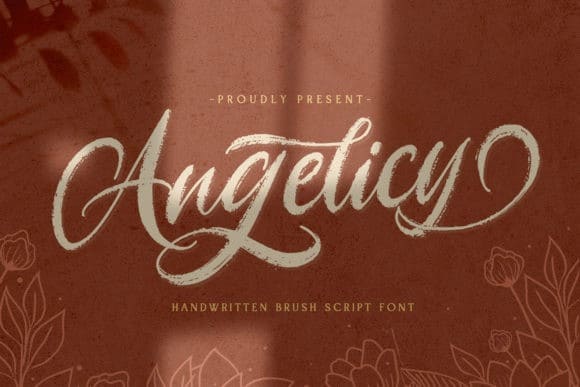
Angelicy Brush Font
Angelicy Font a new fresh & modern script with a brush calligraphy style, a dancing baseline! So beautiful on invitation like greeting cards, branding materials, business cards, quotes, posters, and more!
Angelicy Font come with more Alternative and Ligature. The alternative characters were divided into several Open Type features such as Stylistic Sets, Stylistic Alternates and Ligature.